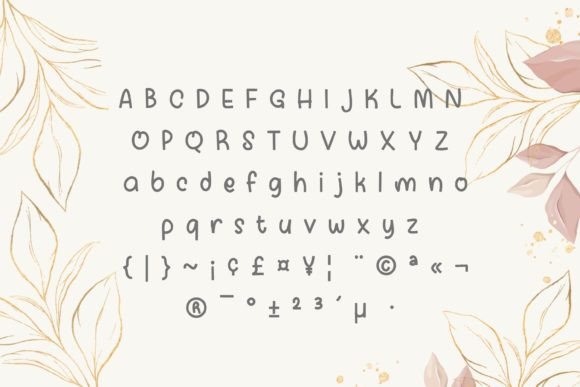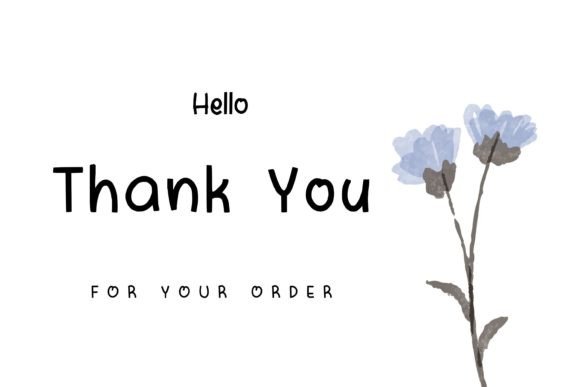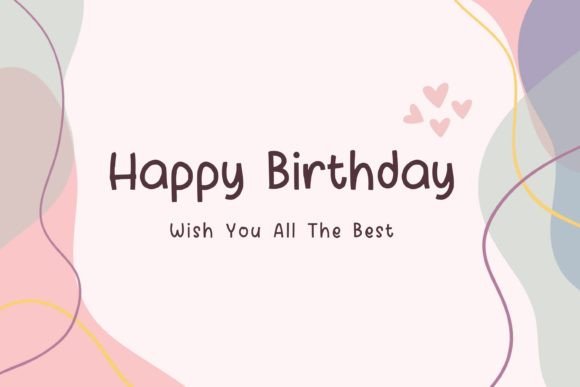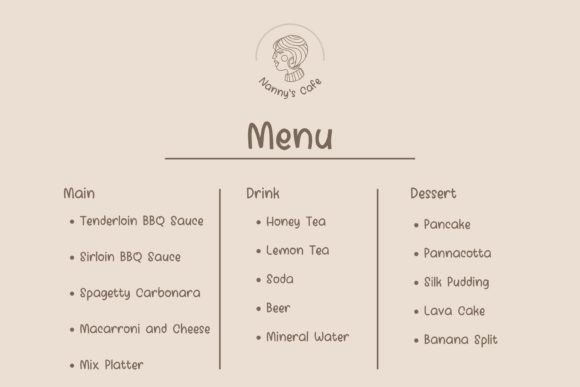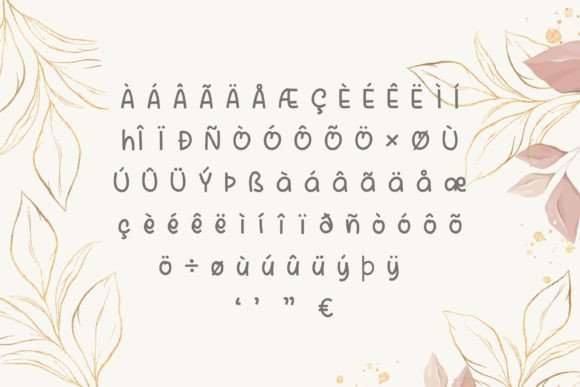
Golfyd Font: The Friendly and Casual Handwritten Font for All Occasions
Are you tired of using the same old fonts for your designs and crafts? Look no further than Golfyd Font, a friendly and casual handwritten font that’s perfect for a variety of projects. Whether you’re a designer, crafter, or simply someone who loves to make greeting cards, Golfyd Font is sure to become your new go-to font.
What is Golfyd Font?
Golfyd Font is a beautiful, handwritten font that’s designed to be both friendly and casual. Its unique charm and character make it perfect for a wide range of projects, from digital designs and presentations to crafts and greeting cards. With Golfyd Font, you can add a personal touch to your work and make it stand out from the crowd.
Features of Golfyd Font
So, what makes Golfyd Font so special? Here are just a few of its key features:
• Handwritten charm: Golfyd Font has a unique, handwritten look that’s perfect for adding a personal touch to your designs.
• Friendly and casual: This font is designed to be friendly and approachable, making it perfect for a wide range of projects.
• Versatile: Golfyd Font can be used for everything from digital designs and presentations to crafts and greeting cards.
• Easy to read: Despite its handwritten look, Golfyd Font is easy to read and understand, making it perfect for use in body text.
Uses for Golfyd Font
So, what can you use Golfyd Font for? The possibilities are endless! Here are a few ideas to get you started:
• Crafts: Golfyd Font is perfect for use in crafts, such as scrapbooking, card making, and other paper crafts.
• Digital design: This font is great for use in digital designs, such as social media graphics, blog posts, and website headers.
• Presentations: Golfyd Font can add a personal touch to your presentations, making them more engaging and memorable.
• Greeting cards: This font is perfect for use in greeting cards, whether you’re making them for special occasions or just to say hello.
Why Choose Golfyd Font?
So, why should you choose Golfyd Font for your next project? Here are just a few reasons:
• Unique look: Golfyd Font has a unique, handwritten look that’s sure to make your designs stand out.
• Versatile: Golfyd Font can be used for a wide range of projects, making it a great addition to your font library.
• High-quality: This font is high-quality and designed to look great in a variety of sizes and resolutions.
Tips for Using Golfyd Font
Here are a few tips for getting the most out of Golfyd Font:
• Use it with images: Golfyd Font looks great when paired with images, so consider using it in combination with photos or illustrations.
• Experiment with colors: This font looks great in a variety of colors, so don’t be afraid to experiment and find the perfect color for your project.
• Use it in combination with other fonts: Golfyd Font can be used in combination with other fonts to create a unique and interesting look.
Font Name Golfyd Font
Author nuraisyahamalia1729
In conclusion, Golfyd Font is a friendly and casual handwritten font that’s perfect for a wide range of projects. Its unique charm and character make it a great addition to any font library, and its ease of use makes it accessible to designers and crafters of all levels. Whether you’re making crafts, digital designs, presentations, or greeting cards, Golfyd Font is sure to become your new go-to font.